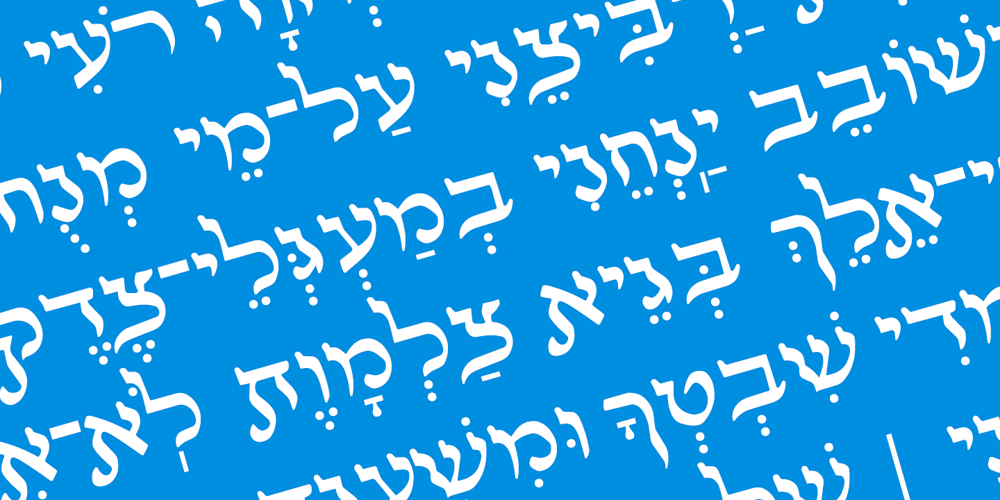
Hebrew Mairi
Hebrew Mairi font
Hebrew Mairi Font Family was designed by Sami Artur Mandelbaum and published by Samtype. Hebrew Mairi contains 1 styles and family package options. The beautiful and elegant typeface, excellent use in wedding invitations, arts, posters, and small texts.